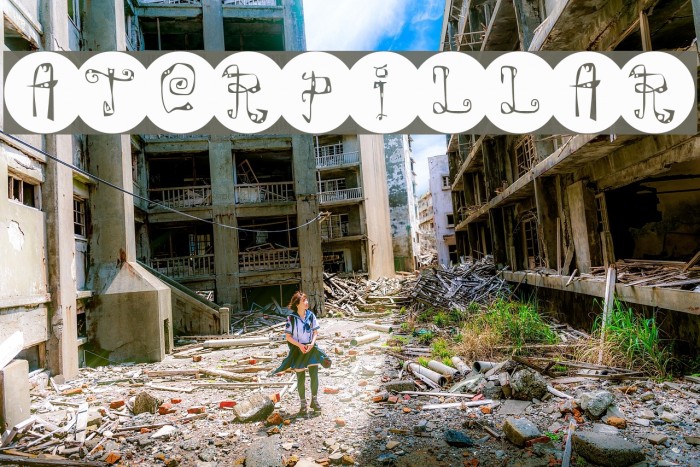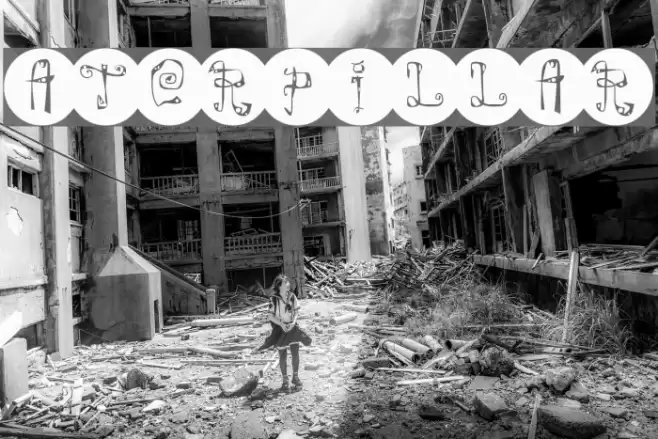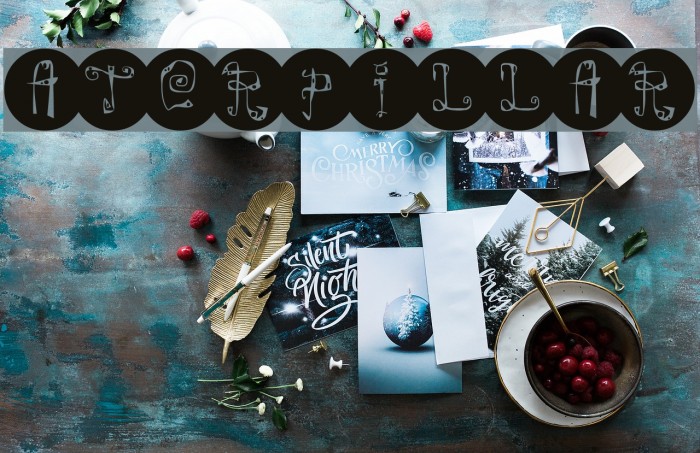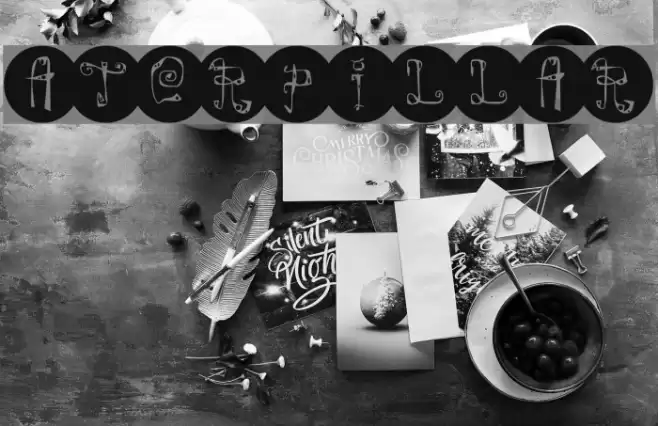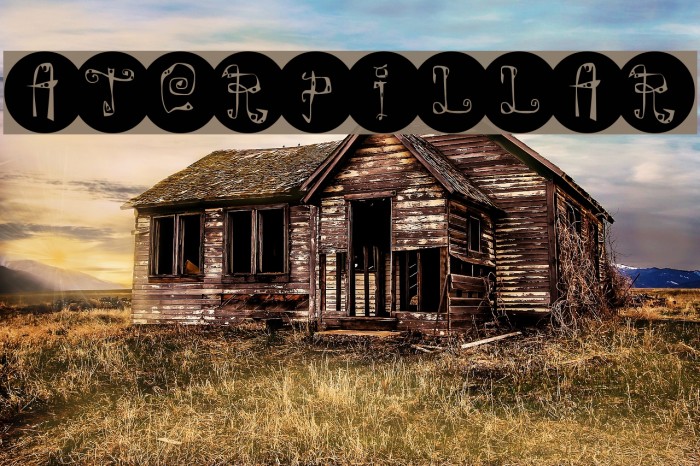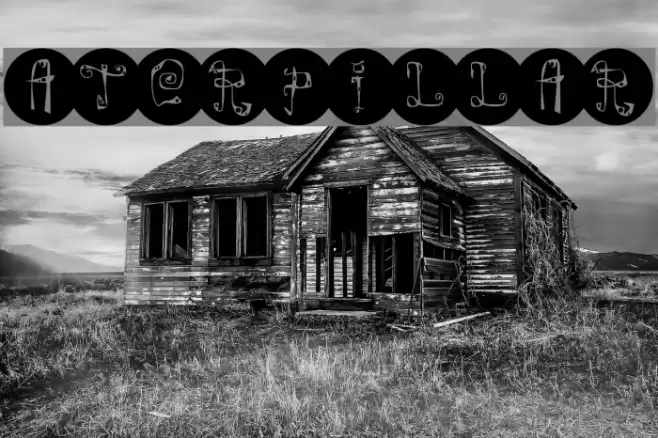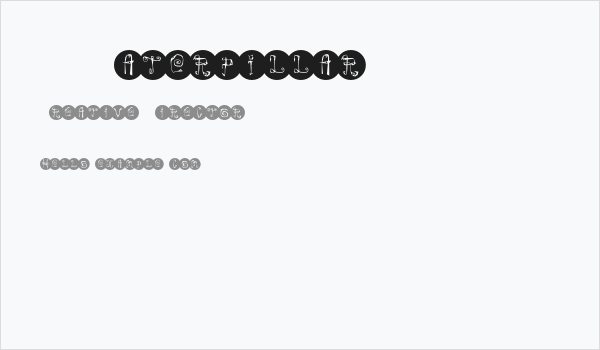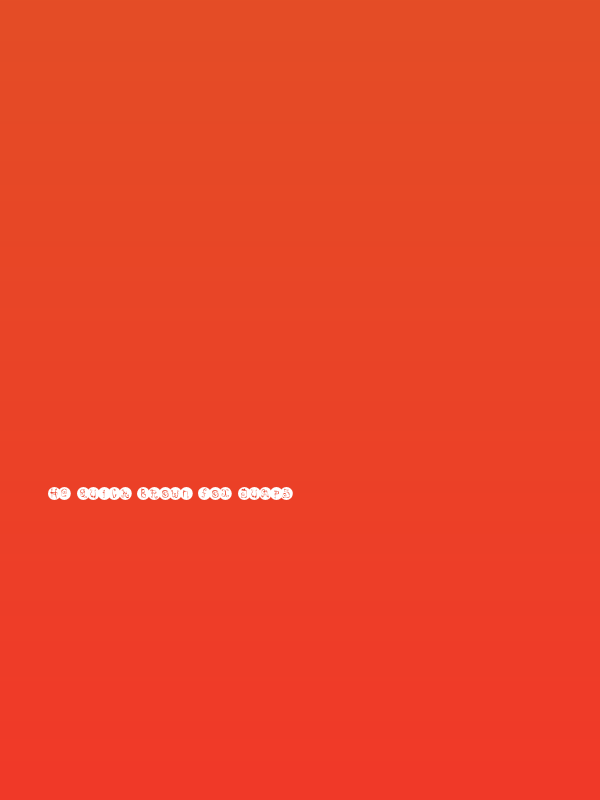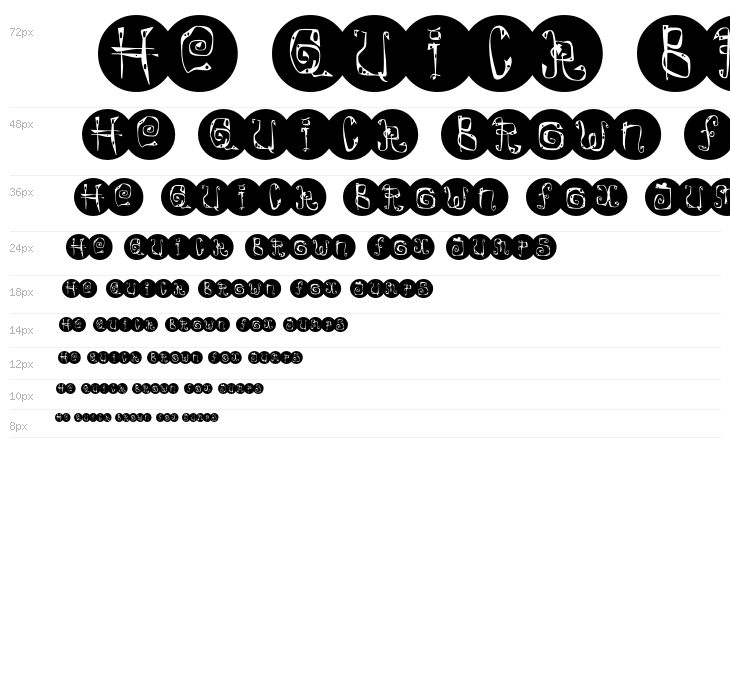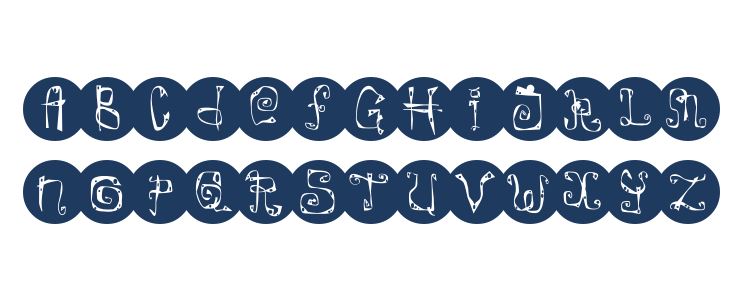
FE-Caterpillar Font
FE-Caterpillar Description
This font features a whimsical and playful design, with each character encased in a circular form. The letters are intricately crafted with a decorative style, incorporating elements that resemble vines or tendrils. The overall appearance is both artistic and unique, making it stand out with its creative flair. The characters maintain a consistent size and shape, providing a cohesive look across the alphabet. This font is ideal for projects that require a touch of creativity and fun, offering a distinct visual appeal that captures attention.
| Proposed Projects | Ideal for children's book covers, playful branding, creative posters, and artistic invitations. |